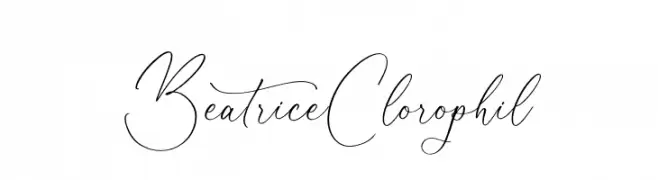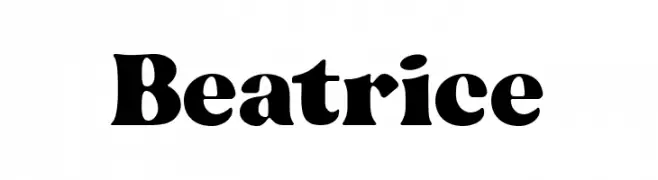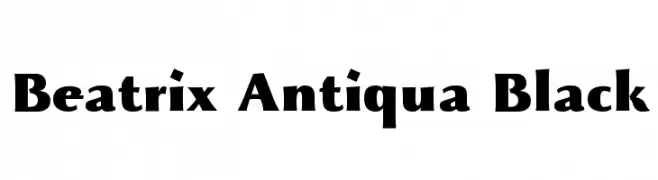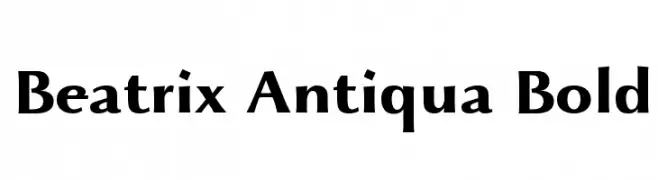
A bold, high-contrast serif font with elegant curves and a modern twist.
An elegant script font with flowing, cursive letterforms and delicate strokes.
An elegant script font with intricate loops and flowing cursive style.
An elegant script font with intricate loops and flourishes, perfect for formal occasions.
A modern, handwritten font with a casual and flowing style.
A lively, cursive script font with fluid, interconnected letters.
A bold, high-contrast serif font with a classic yet modern style.
A bold, high-contrast italic serif font with a dynamic and elegant style.
A bold, classic serif font with elegant curves and strong presence.
A bold, italicized font with a strong yet elegant style.